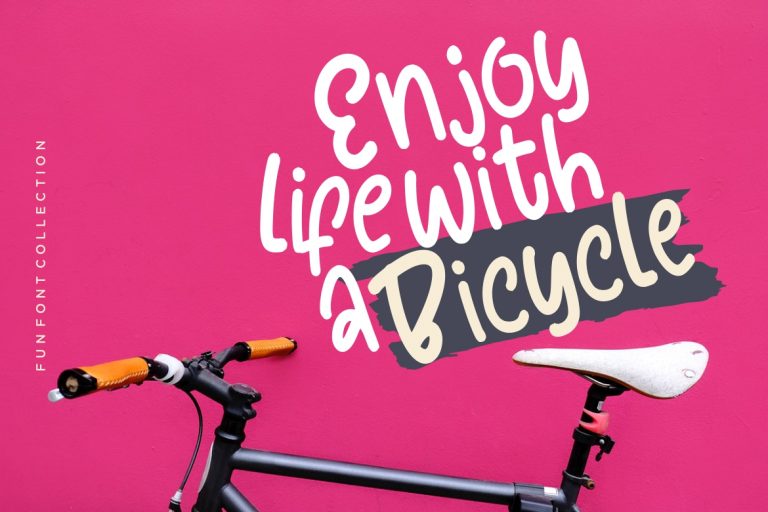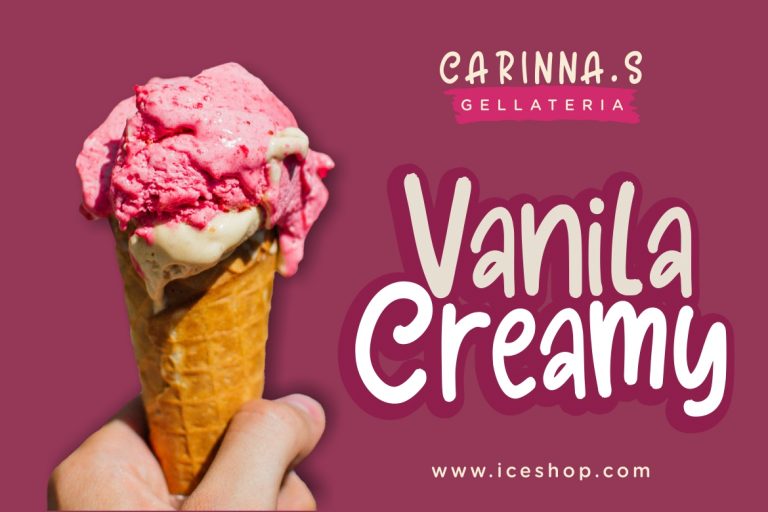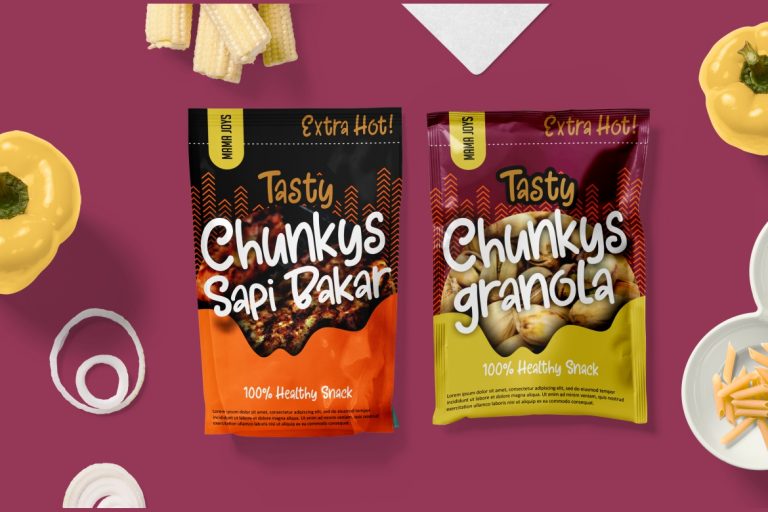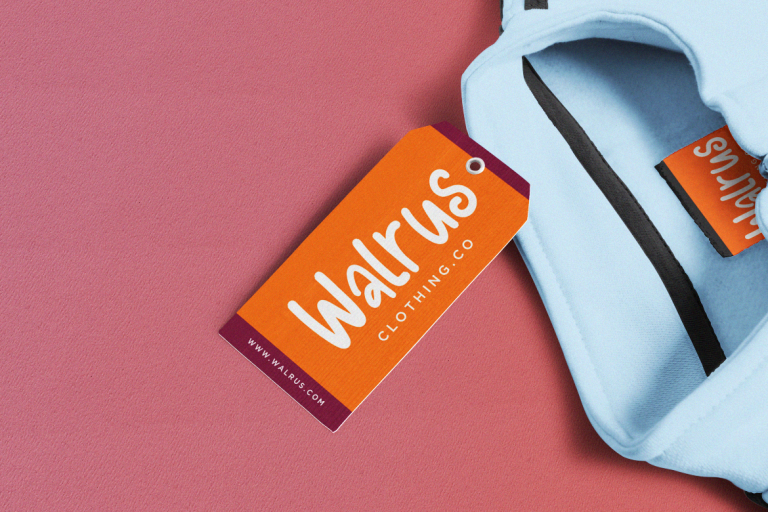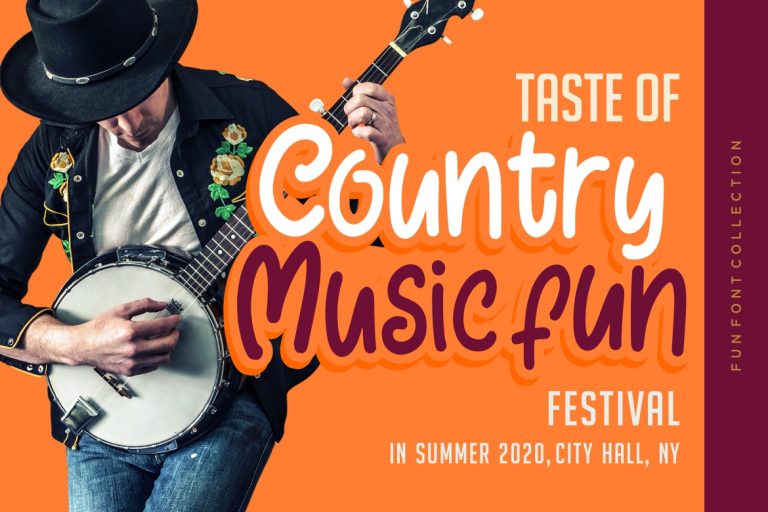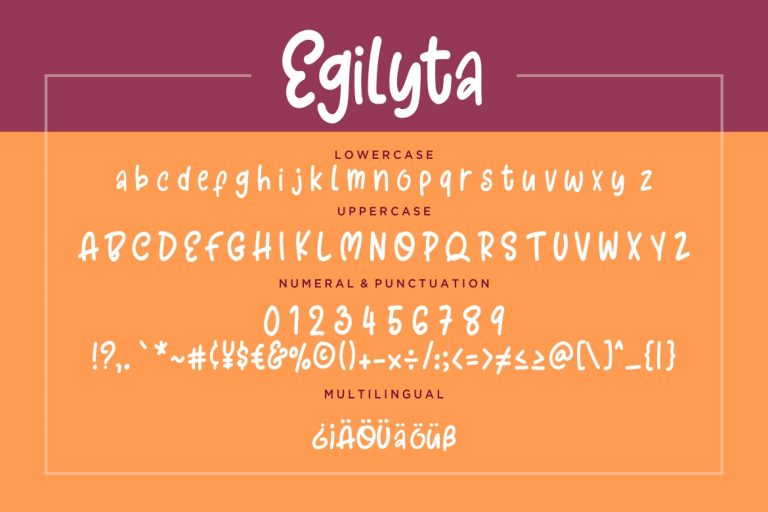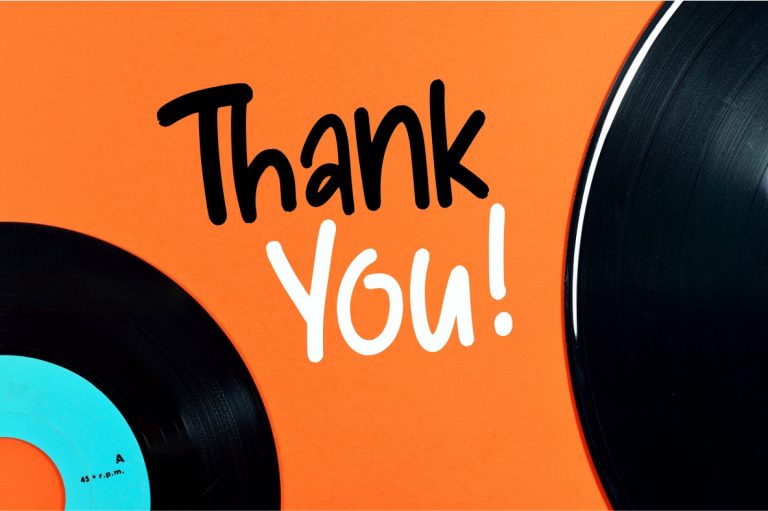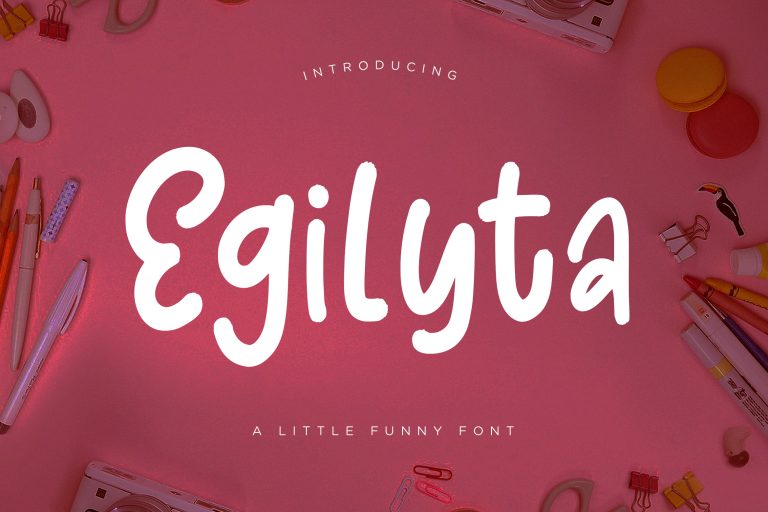
Egilyta is bold and fun sans serif font will brings joyful and happiness to all of us.
Egilyta is perfect for branding projects, logo, wedding designs, social media posts, advertisements, product packaging, product designs, label, photography, watermark, invitation, stationery and any projects that need handwriting taste.
- Fonts include multilingual support for; ä ö ü Ä Ö Ü ß ¿ ¡
Egilyta A Little Funny Font